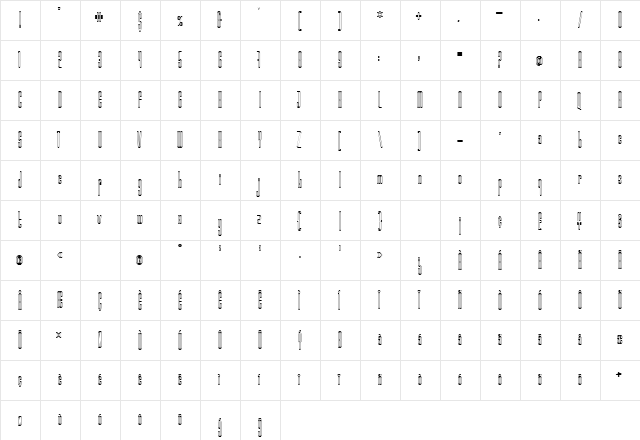
Marbellya Condensed Outline Bold
Design Context for Marbellya Condensed Outline Typeface
Marbellya Condensed Outline brings ornamental detail and strong personality to headlines and identities, where visual impact matters more than quiet functionality. Its bold stroke weight gives it real presence on the page.
Font Pairing: Pair with a clean neutral sans-serif for body copy to let Marbellya Condensed Outline's character lead without overwhelming the composition.
Pro Tip: Use Marbellya Condensed Outline exclusively at display sizes — it was designed to be seen, not read at length. Let a neutral companion handle body copy.